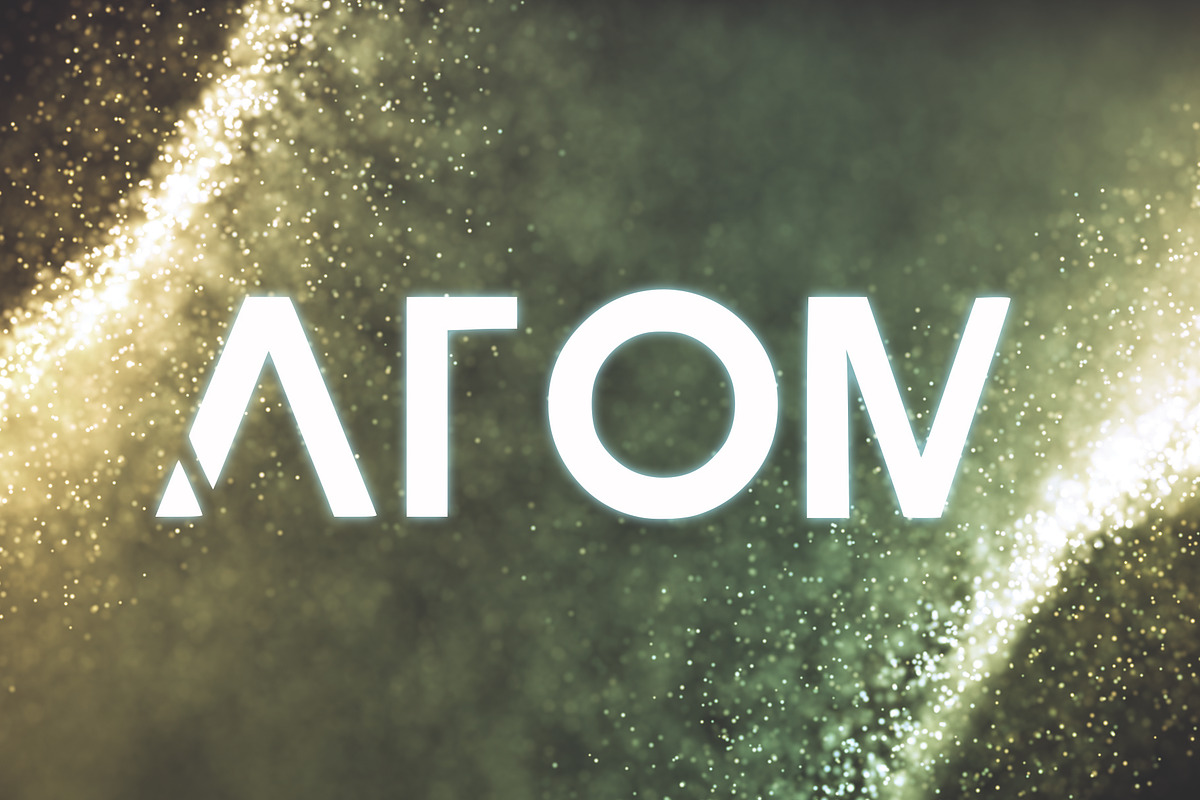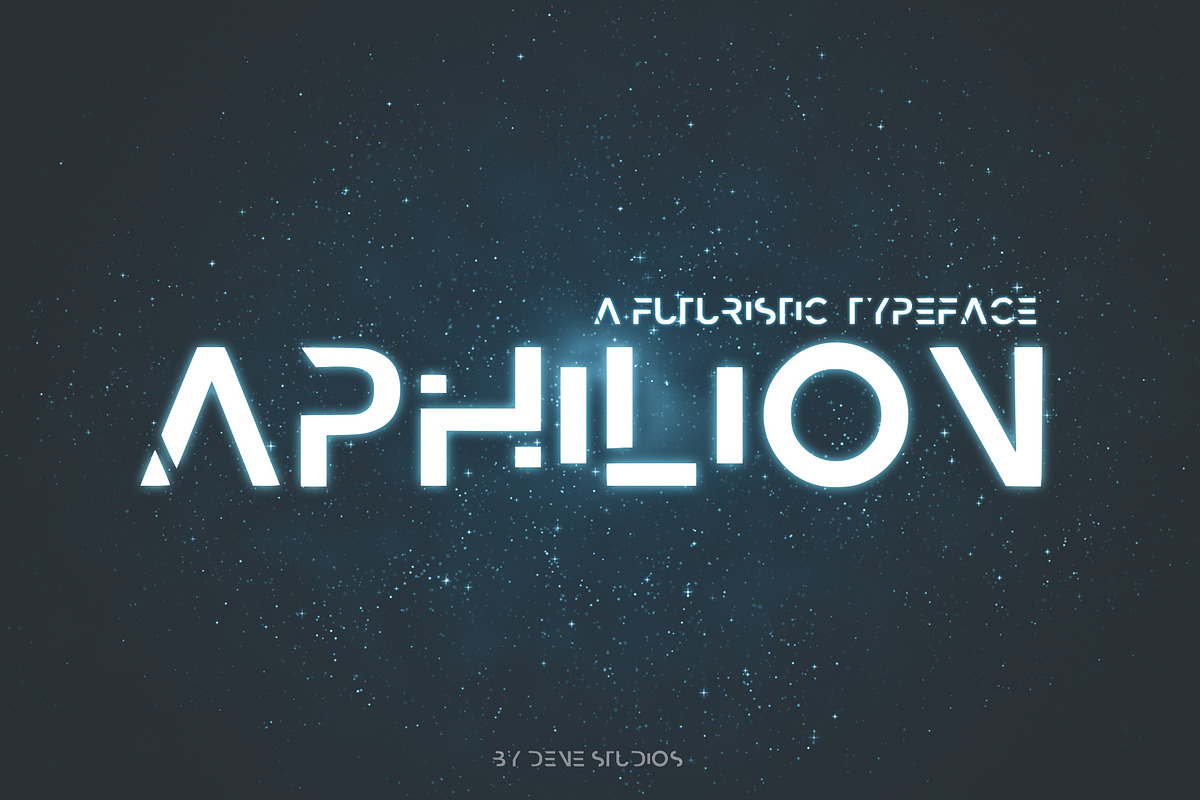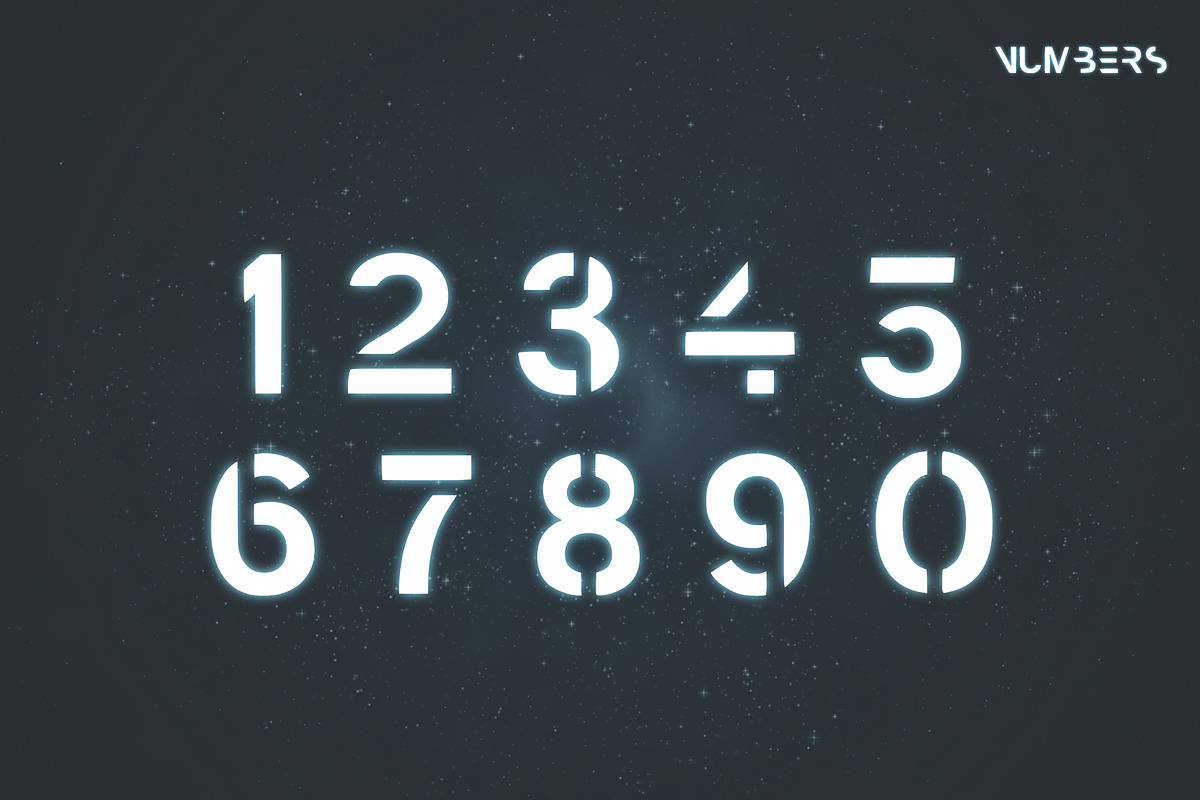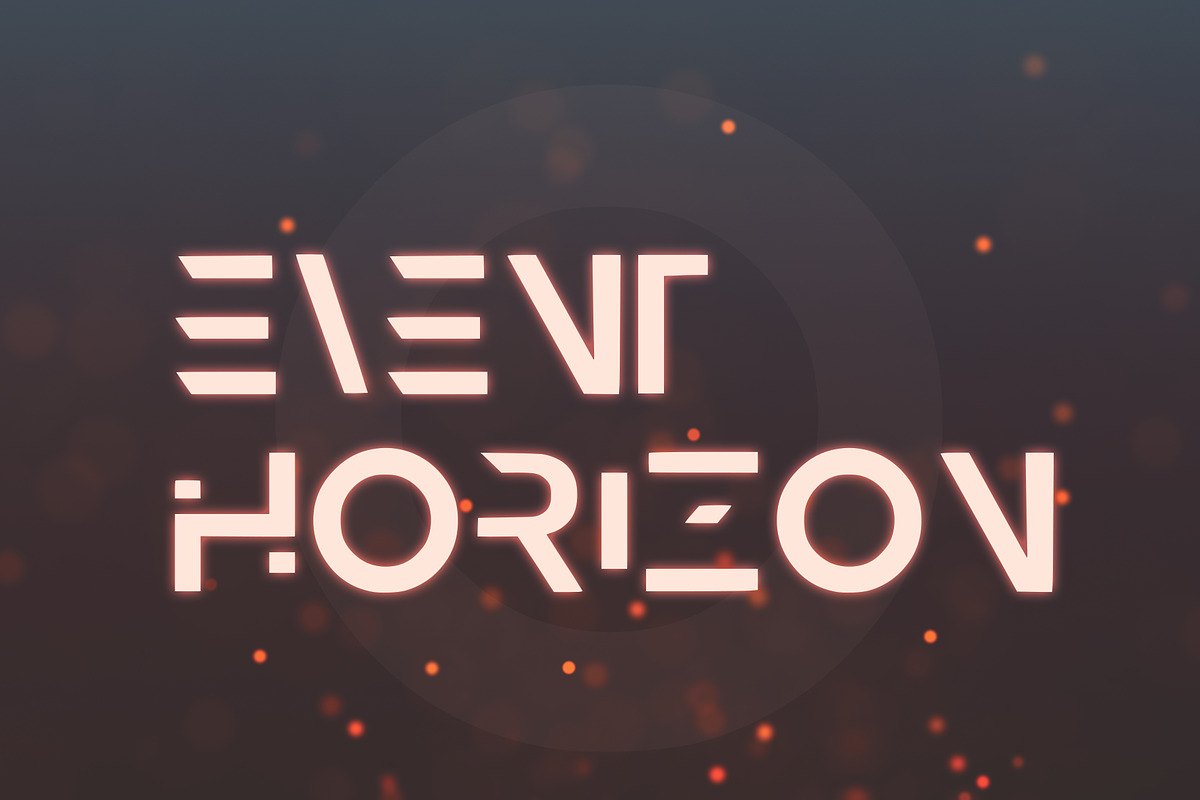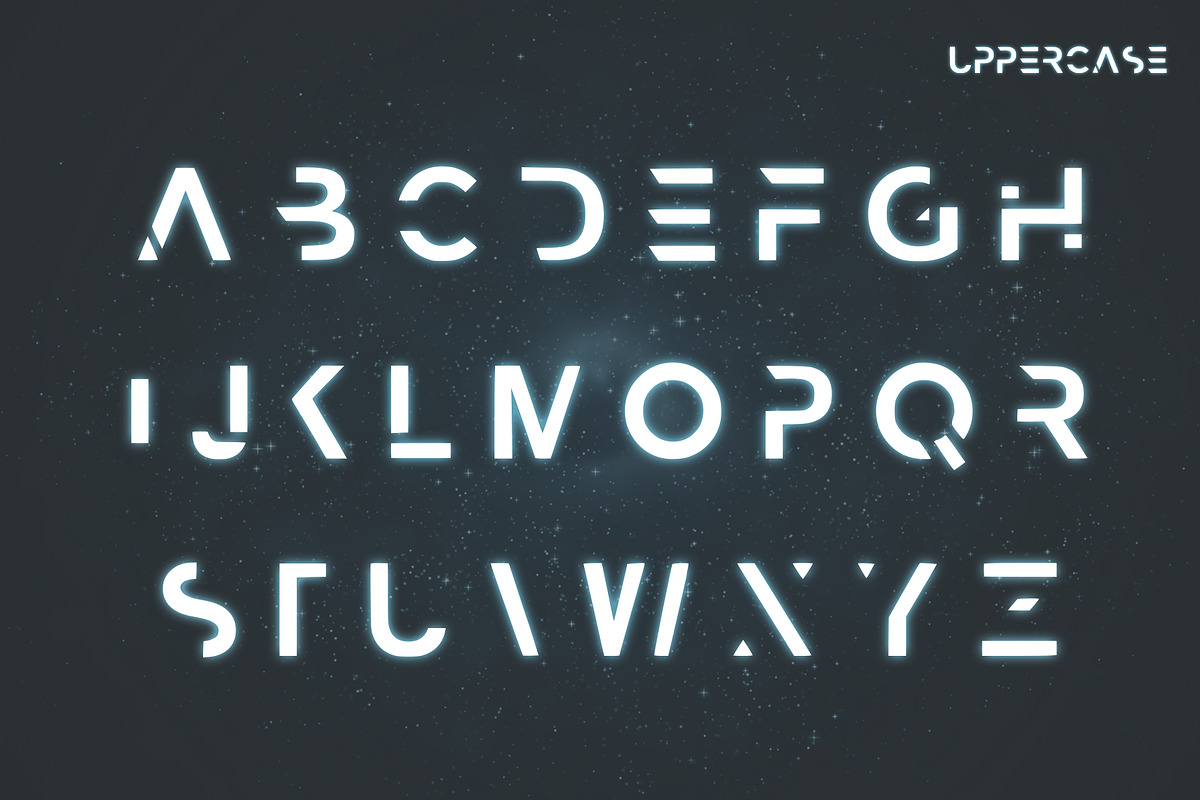
APHILION - A Futuristic Typeface
Aphilion is a unique and creative design that has been passionately handcrafted to give you a futuristic typeface. Inspired by sci-fi, this font is perfect for your next project, especially if you want to give a futuristic feel.
APHILION - A Futuristic Typeface by Dene Studios fits naturally into Branding, posters, packaging, typography.